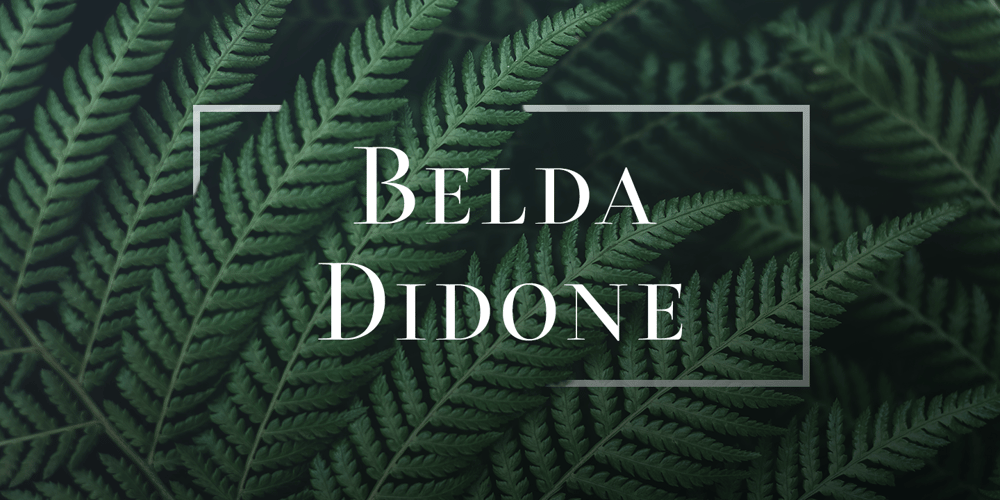
Belda Didone Font Family was designed by Jeremy Dooley and published by insigne. Belda Didone contains 54 styles and family package options. Belda Didone: the elegant strokes of Belda, now with higher contrast.A sleek Didone fusing graceful motion with an elegant typeface, this family offers new versatility. Belda Didone is a refined gem of a font that provides an unmatched level of luxury.Belda Didone is the child of Belda, offering new opportunities for a brave new world. The high contrast strokes reference the delicate shapes, curves, and sharp serifs of the original.The design of Belda Didone represents a unique balance of harmony and elegance. The architecture is robust and elegant. Belda’s forms have an intense luster and sparkle that captivates the reader’s eye.Belda Didone has plenty of OpenType alternates, including small capitals, titling, and a wealth of weights and widths. This font has the potential to serve as both text and titling. It’s an excellent choice for book jackets, advertising, packaging, and other luxury applications.